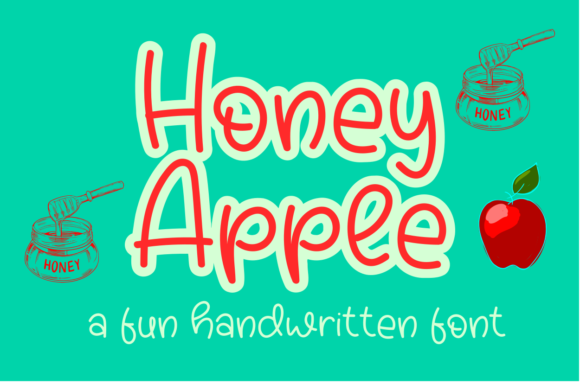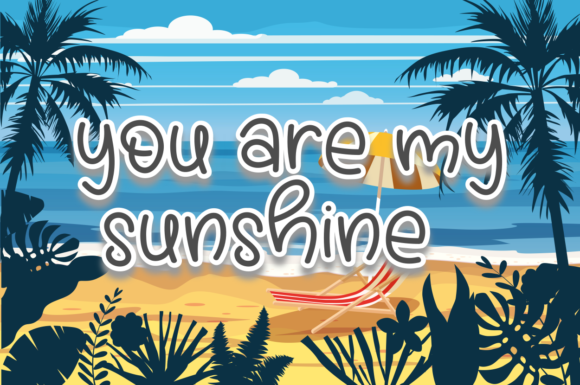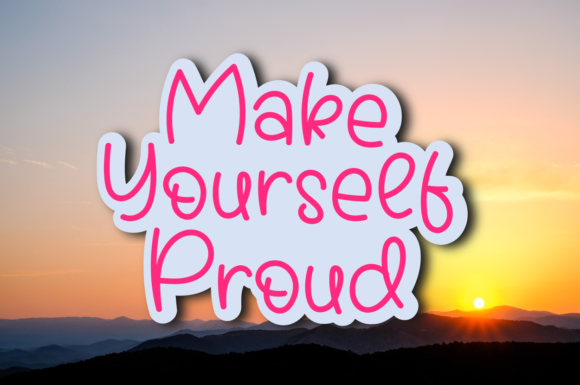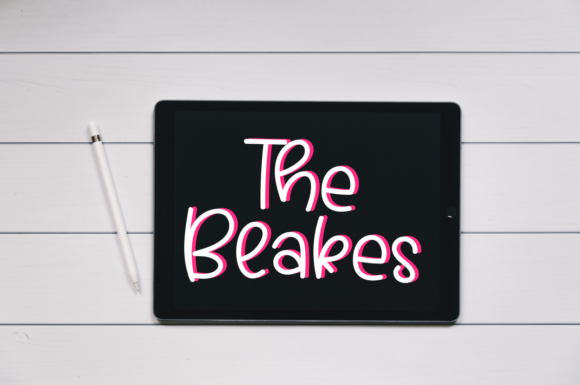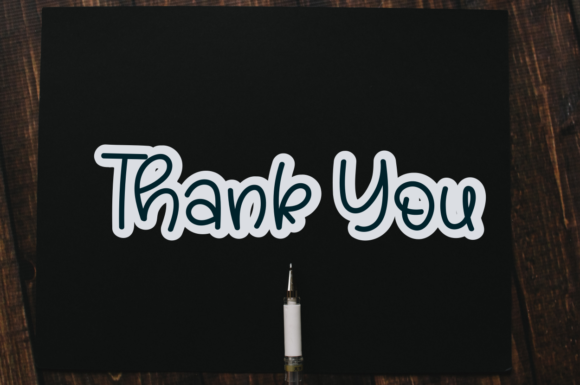
Do you remember the excitement of creating your first design project? The thrill of choosing the perfect font to bring your ideas to life? For many designers, the right font can be the difference between a good design and a great one. And that’s exactly what we’re here to talk about – a font that’s sure to put a smile on your face and add a touch of whimsy to your designs: the Honey Apple Font.
This delightful handwritten font is designed to bring a sense of fun and playfulness to any project. Whether you’re working on a children’s book, a social media campaign, or a wedding invitation, the Honey Apple Font is the perfect addition to your font library. Its quirky style and lovable personality make it an incredibly valuable asset for designers looking to elevate their creations and make a lasting impression.
Honey Apple Font Key Features
- Unique Characteristics: Honey Apple Font features a unique blend of modern and vintage elements, with intricate details and elegant lines
Honey Apple Font Review
As a designer, I was excited to try out the Honey Apple Font. Here’s my honest review.
- The font has a beautiful, modern design that’s perfect for branding and marketing materials.
- The font is highly customizable, with a wide range of options for color, size, and style.
- The font can be quite bold and overpowering, which may not be suitable for all designs.
- The font lacks a clear distinction between regular and italic styles, which can make it difficult to read in certain contexts.
- The font may not be the best choice for body text, as it can be quite difficult to read in large quantities.
Overall, I think the Honey Apple Font is a solid choice for designers who want a modern, eye-catching font for their branding and marketing materials. However, it may not be the best choice for body text or designs that require a more subtle font.
Honey Apple Font Practical Application Guide
The Honey Apple Font is ideal for:
- Home decor and stationery design
- Children’s books and educational materials
Tips for Getting the Most Out of Honey Apple Font
Experiment with different font sizes and colors to achieve the desired look. Combine the font with other fonts or graphics to add visual interest. Use layer blending modes and opacity to create unique effects.
Alternative Font Options to Honey Apple Font
Great Vibes is a modern script font that exudes a sense of elegance and sophistication. It’s perfect for designers who want to add a touch of whimsy and personality to their designs, especially for titles and headings. In comparison to Honey Apple Font, Great Vibes has a more fluid and organic feel, making it ideal for creative projects.
Lato is a sans-serif font that offers a clean and modern aesthetic. It’s an excellent choice for designers who want to convey a sense of professionalism and simplicity in their designs. Compared to Honey Apple Font, Lato is more straightforward and easy to read, making it suitable for body text and corporate materials.
Playfair Display is a luxurious serif font that adds a touch of sophistication and refinement to any design. It’s perfect for designers who want to create a sense of grandeur and elegance, especially for titles and headings. In comparison to Honey Apple Font, Playfair Display has a more formal and classic feel, making it ideal for high-end projects.
Carolyna Pro is a modern script font that offers a sense of playfulness and creativity. It’s an excellent choice for designers who want to add a touch of personality and whimsy to their designs, especially for titles and headings. Compared to Honey Apple Font, Carolyna Pro has a more fluid and dynamic feel, making it suitable for creative projects and social media graphics.